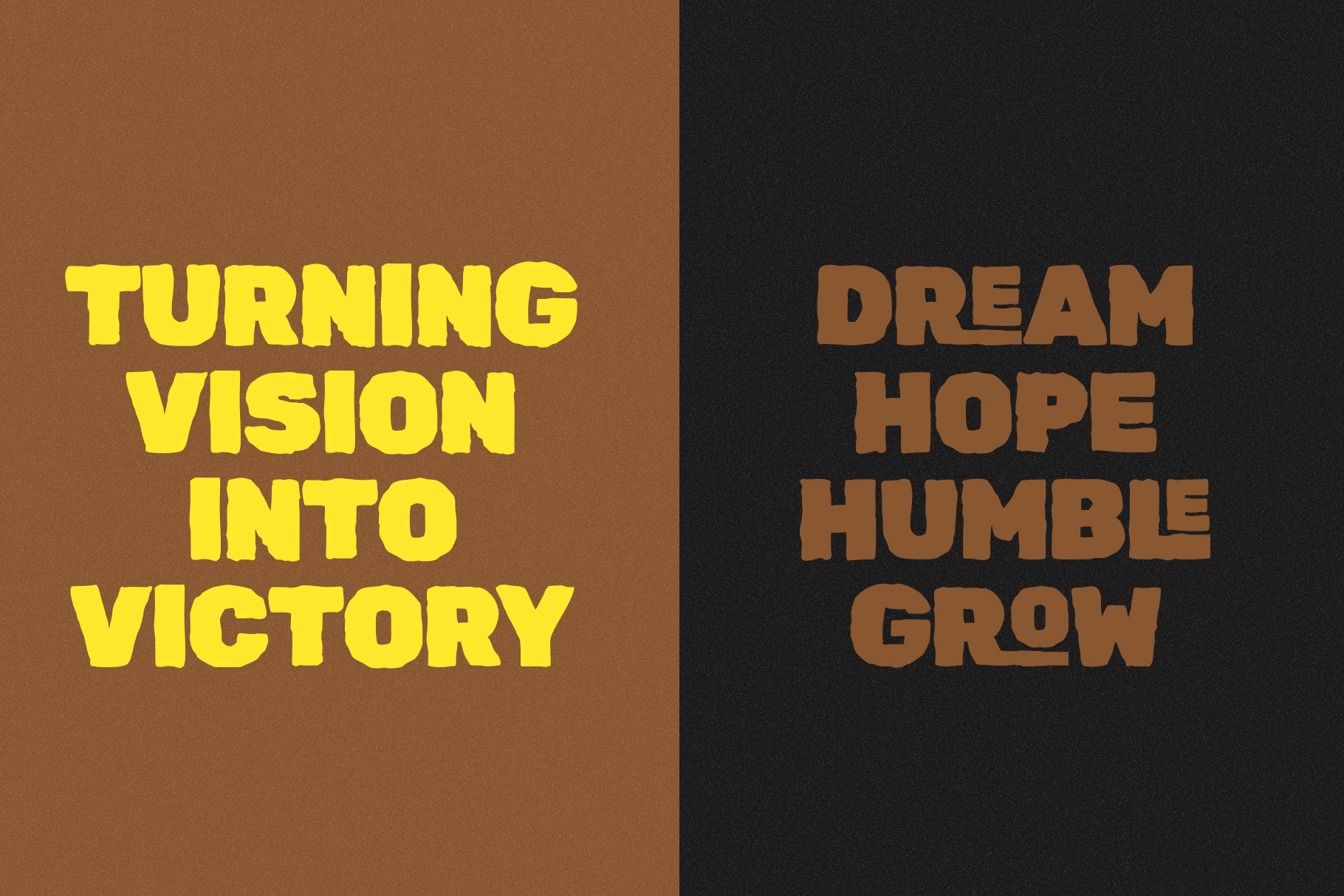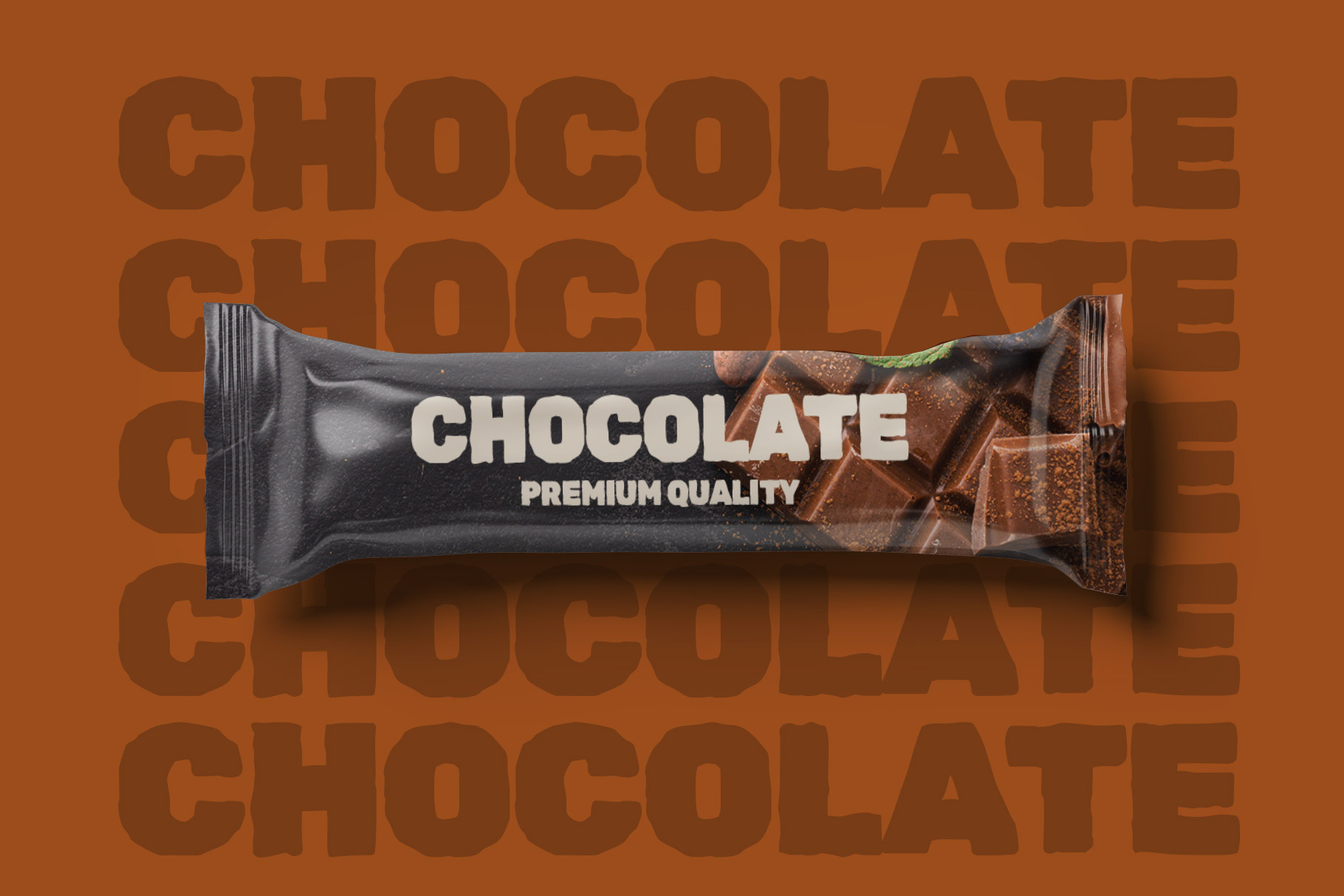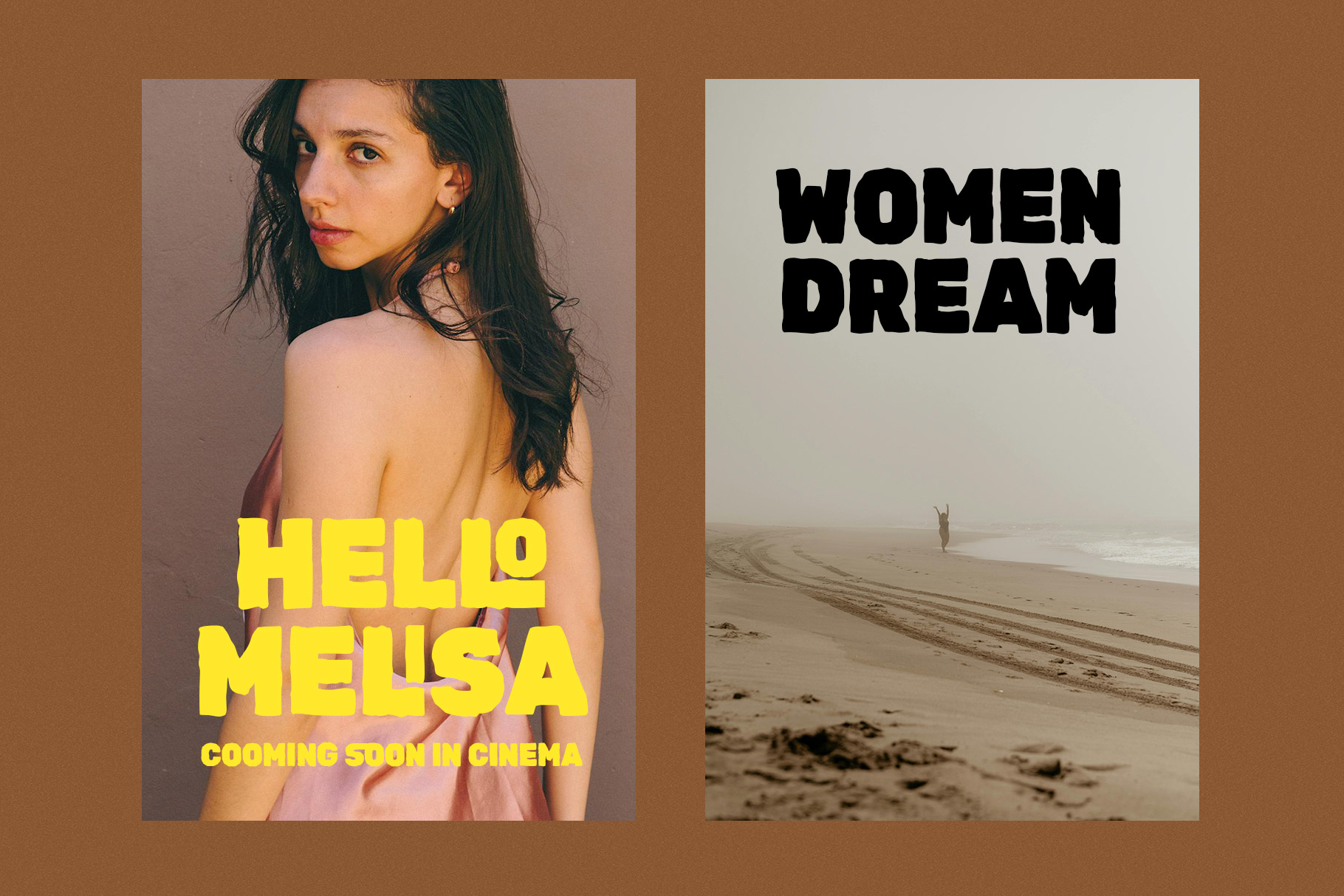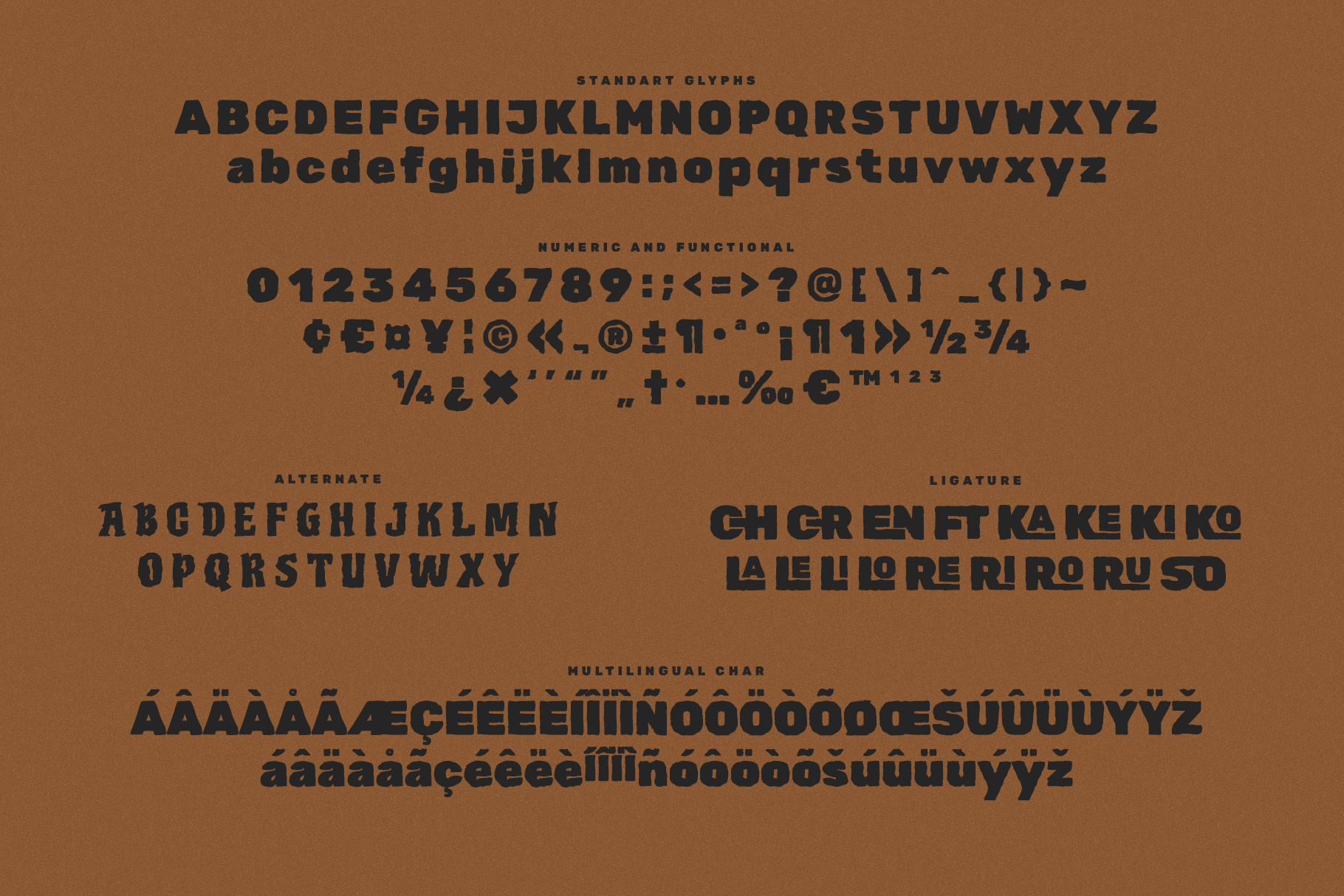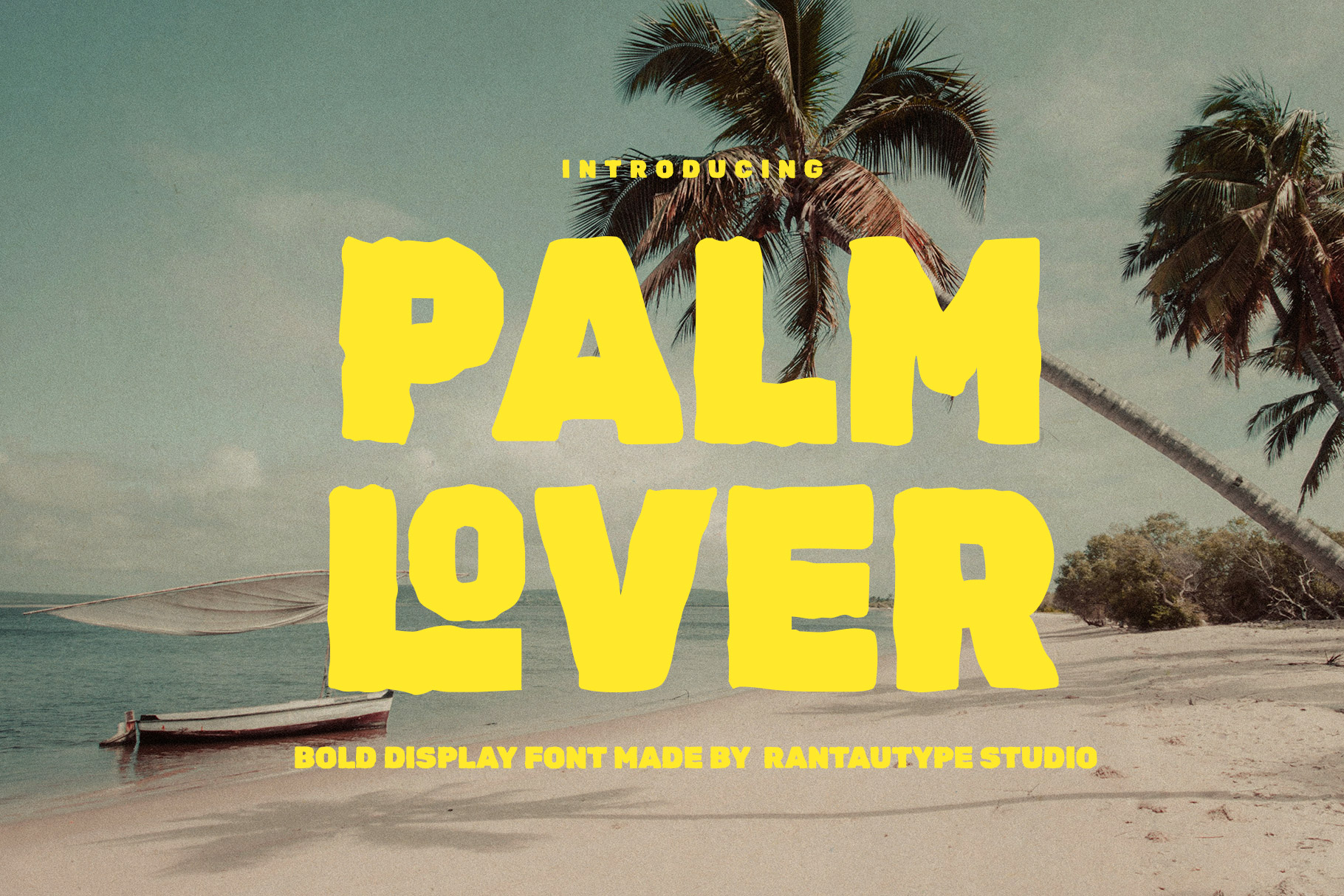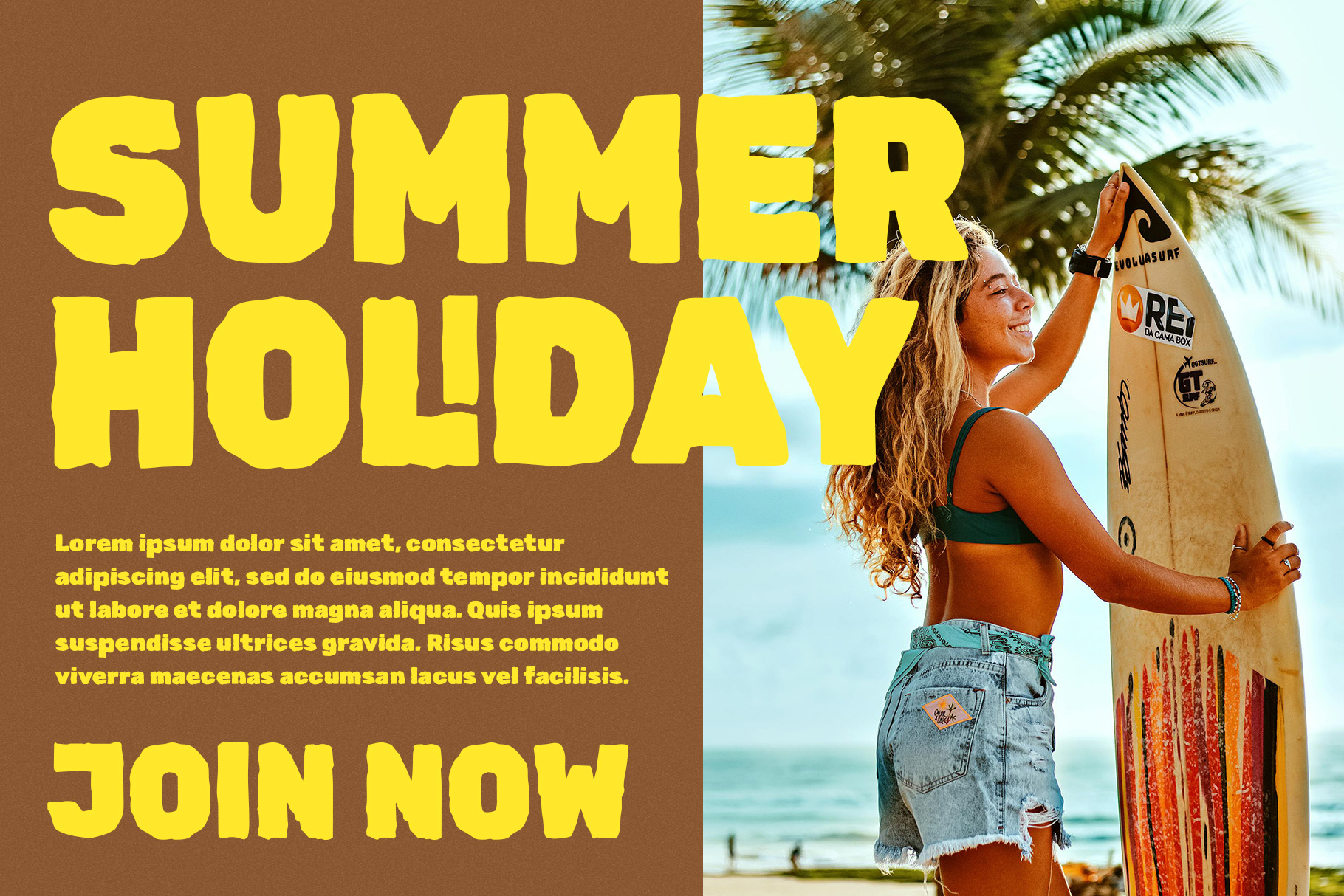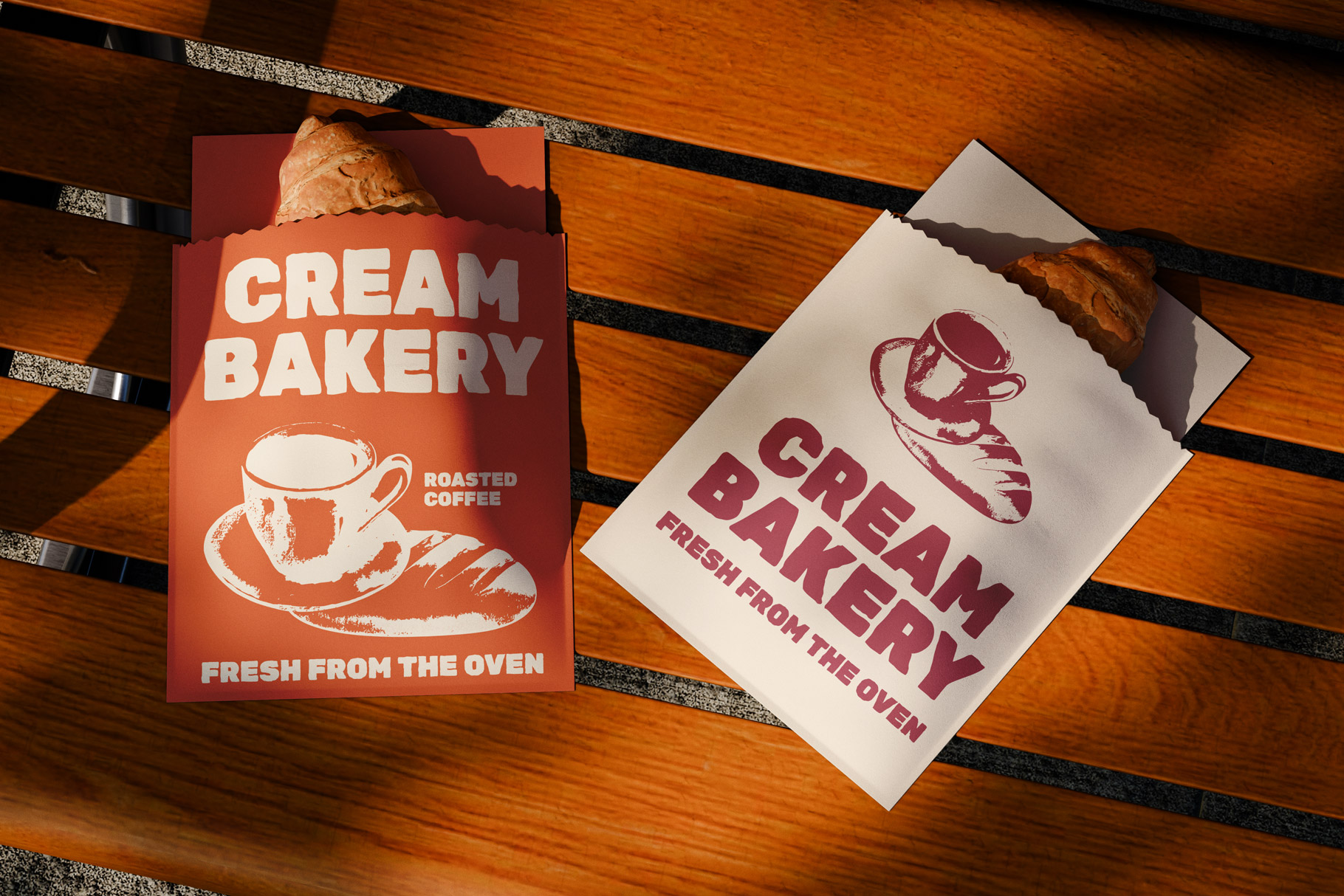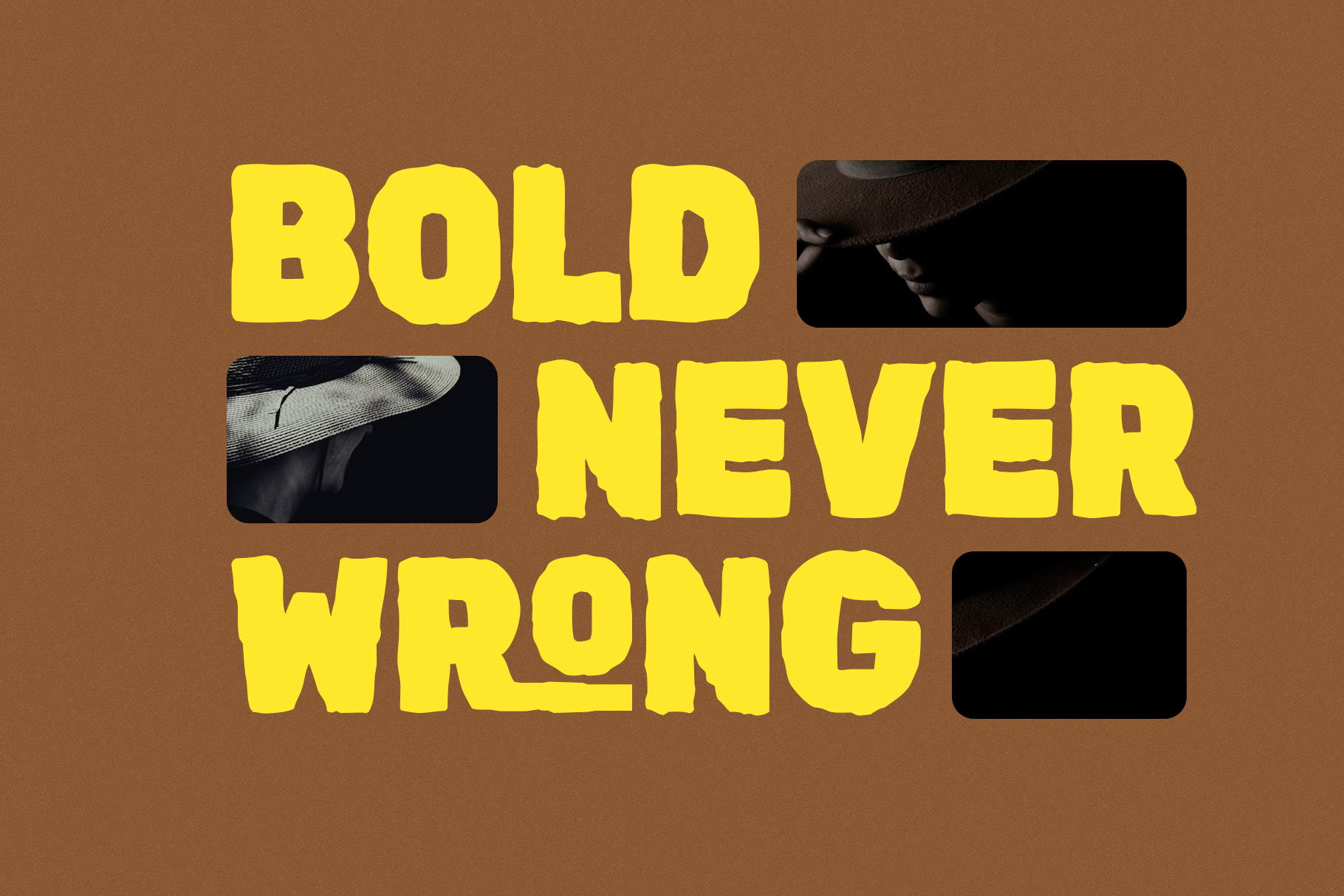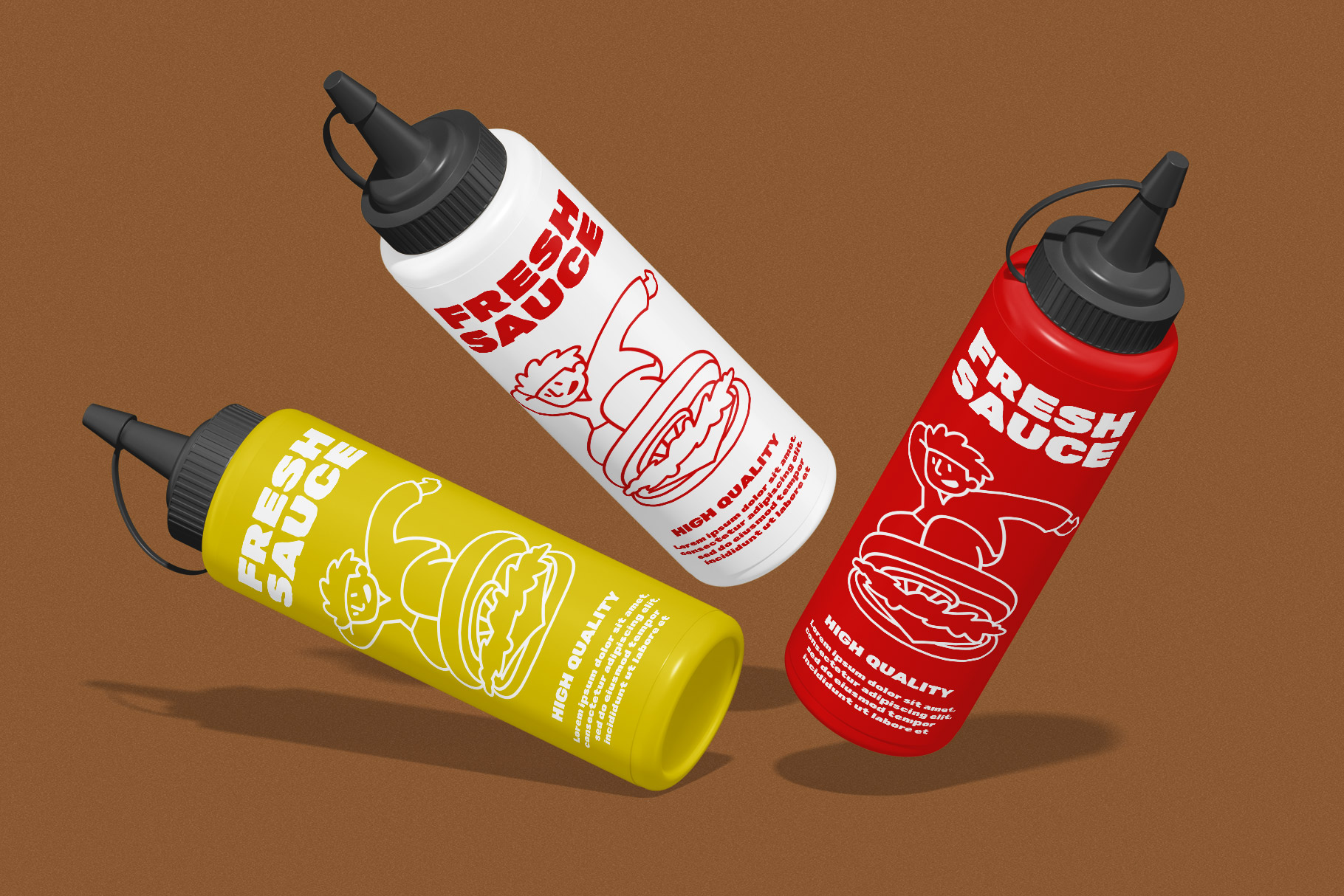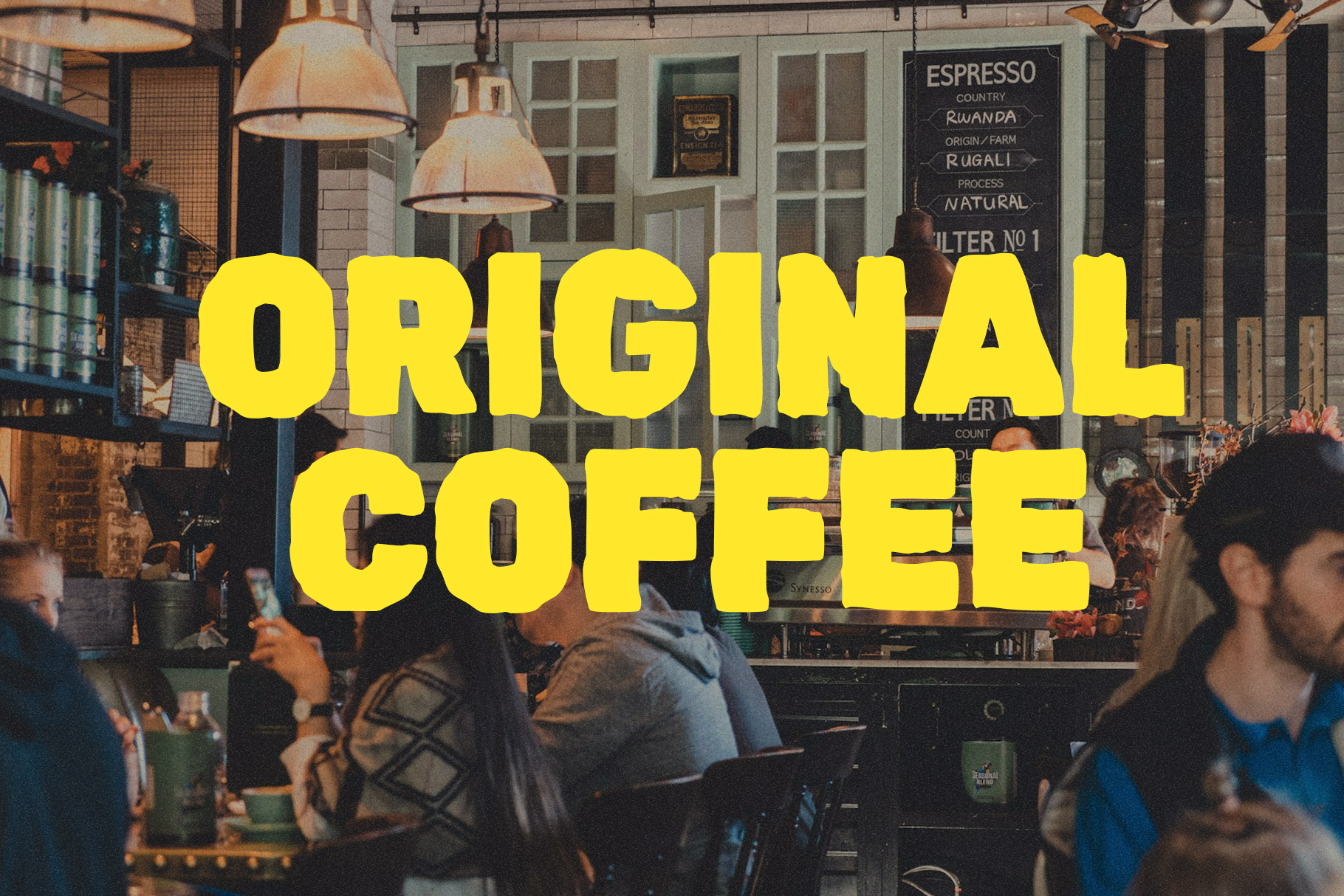
Palm Lover Display Font
Palm Lover is display font with bold and confident vibes. Palm Loveris a perfectly choice for any creative endeavor, creating, modern, lifestyle design such as logotype, title, cover, branding, invitations, wedding designs, display and magazine, social media posts, advertisements, printed quotes, product packaging, corporate brand, product designs, labels, photography, watermarks, special events and any other project with modern touch.